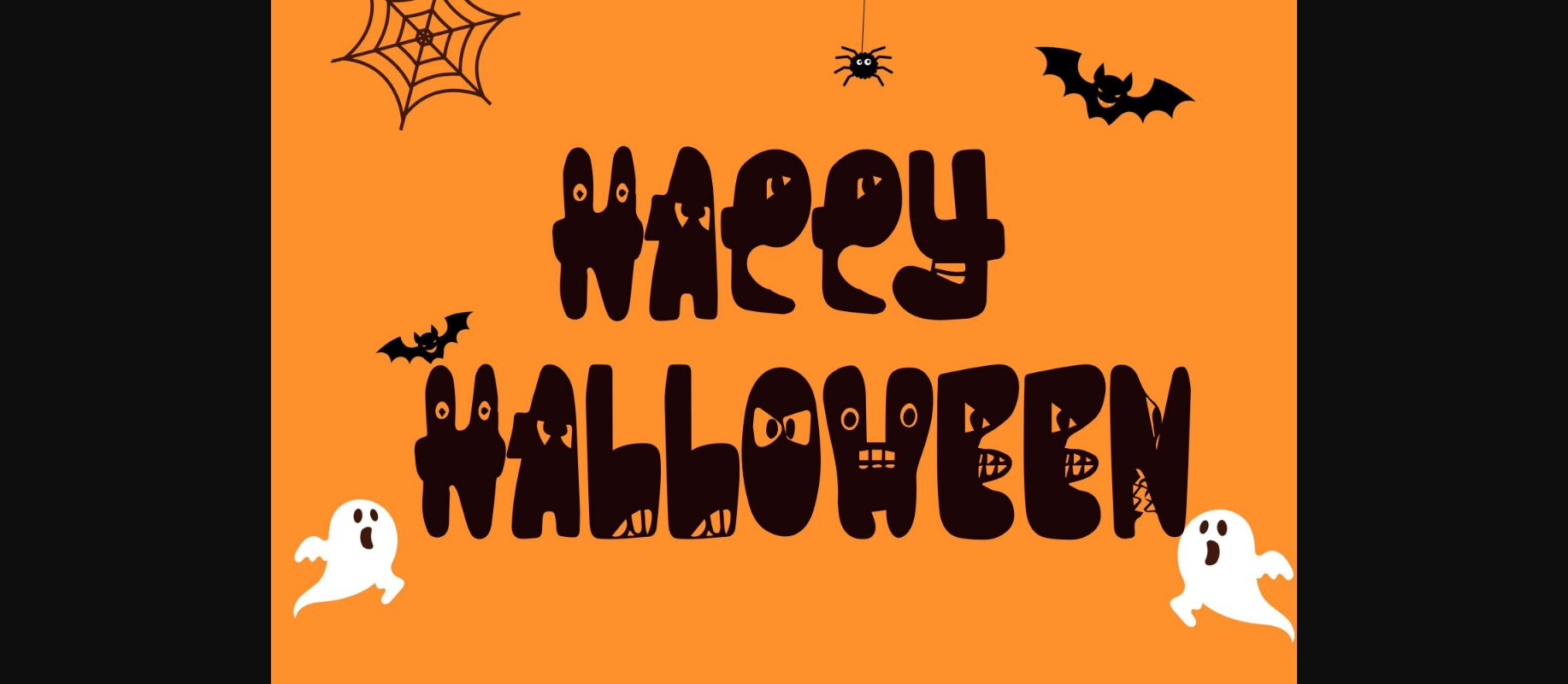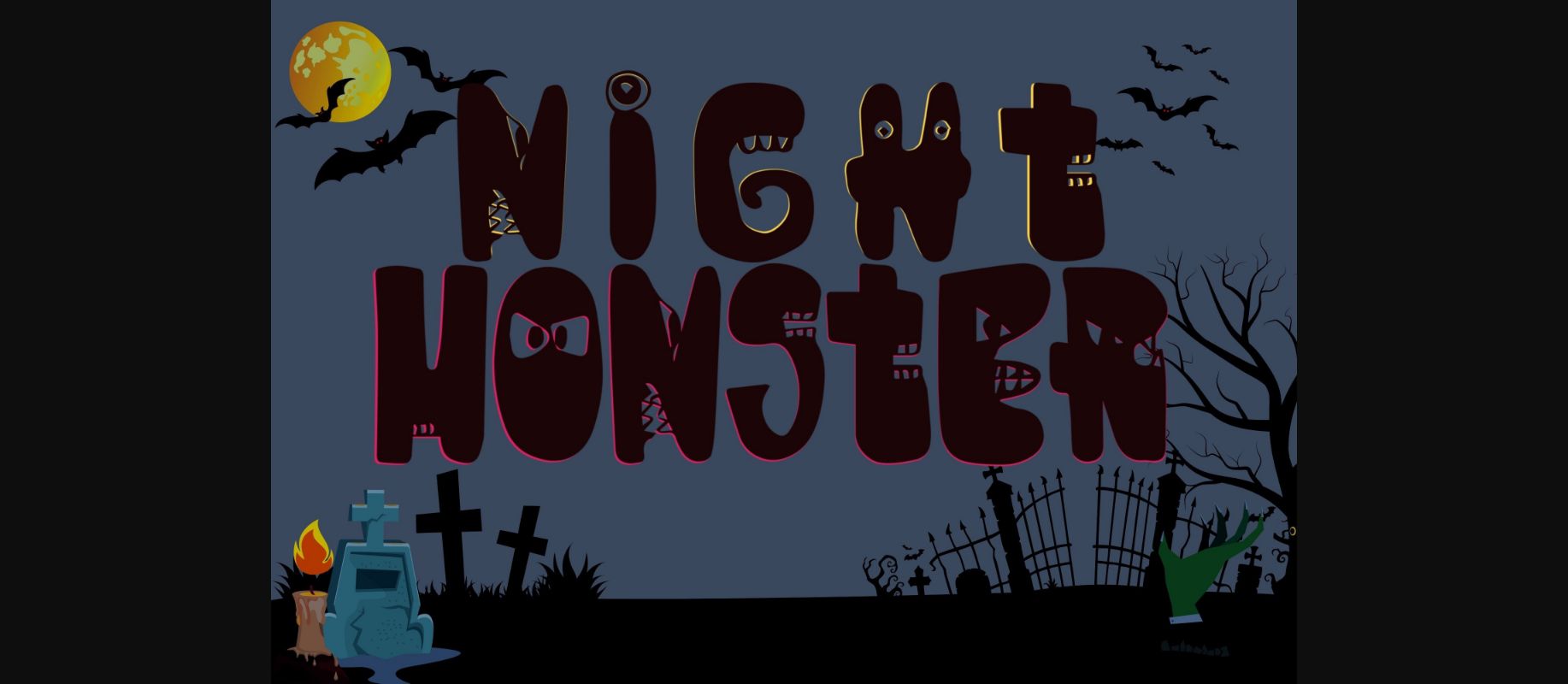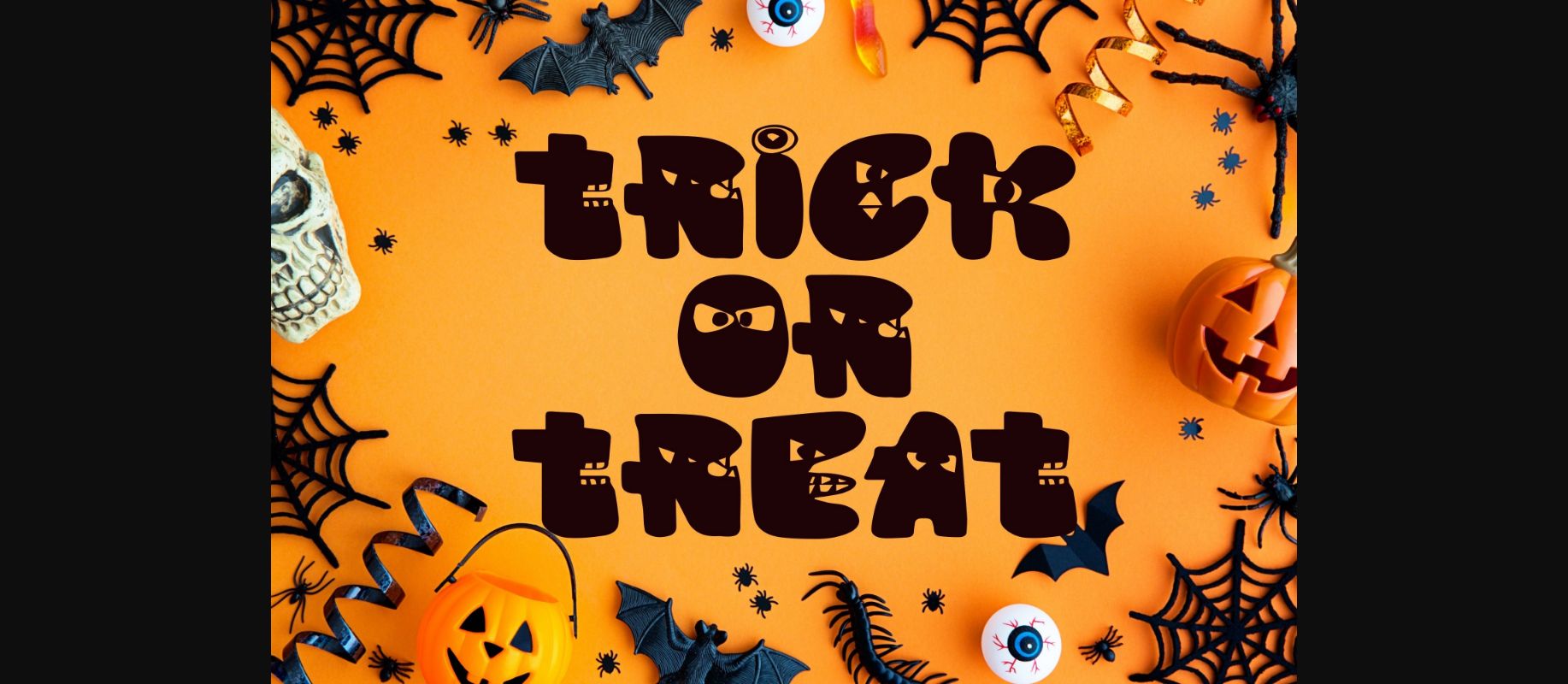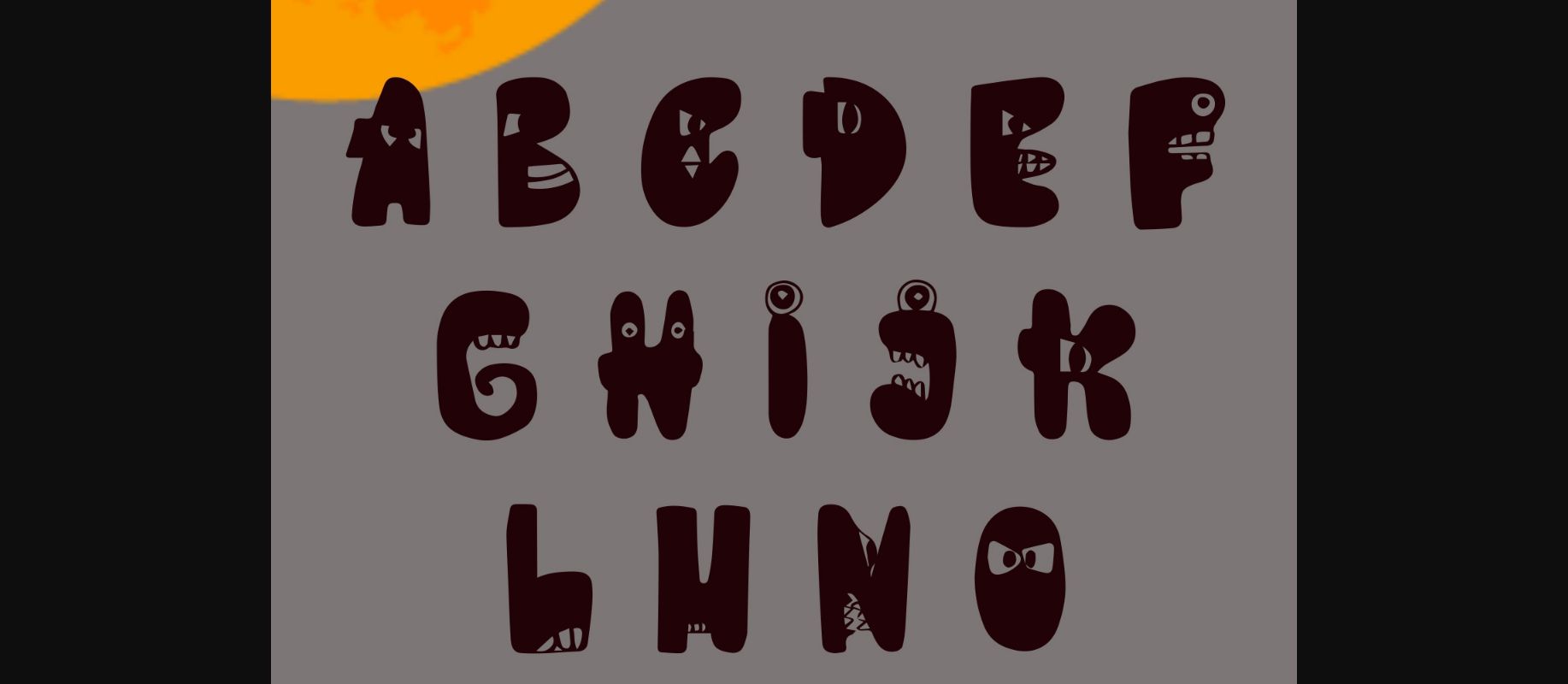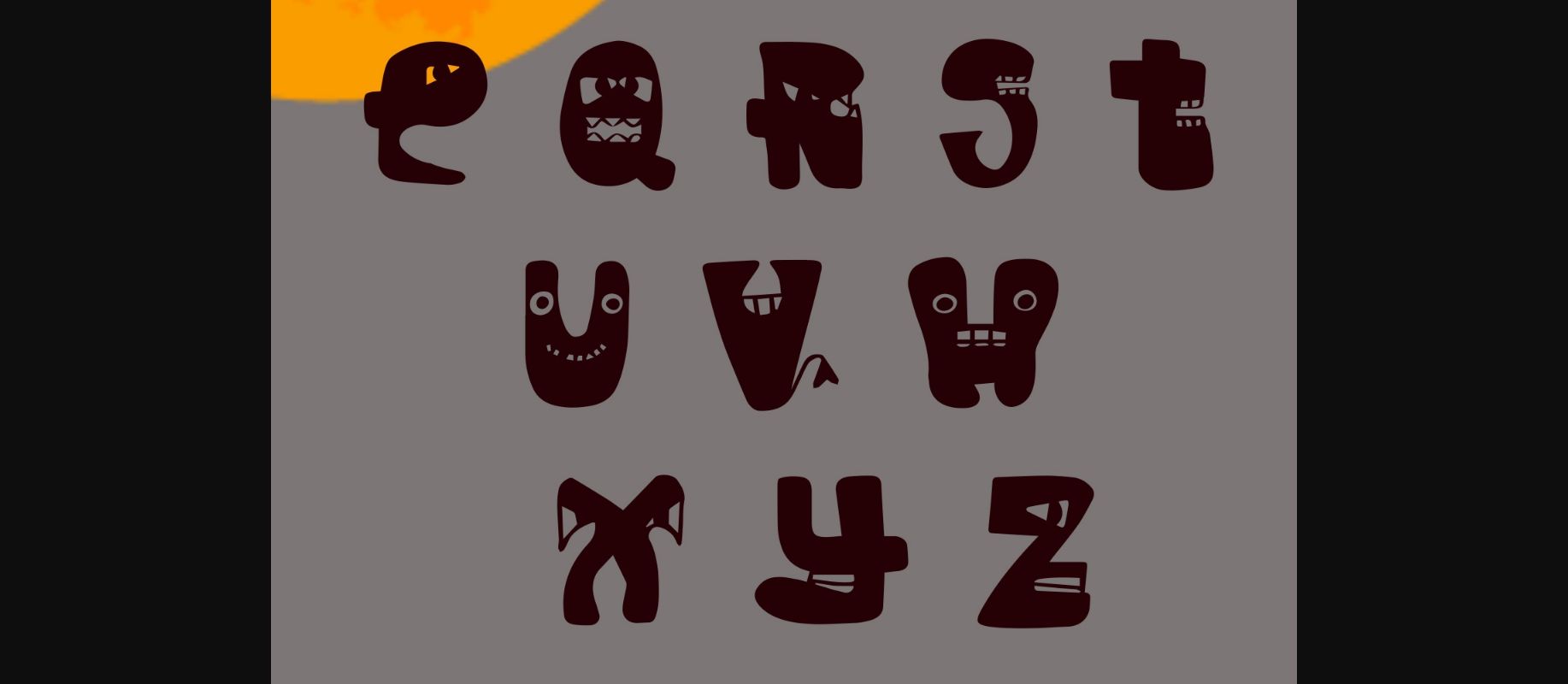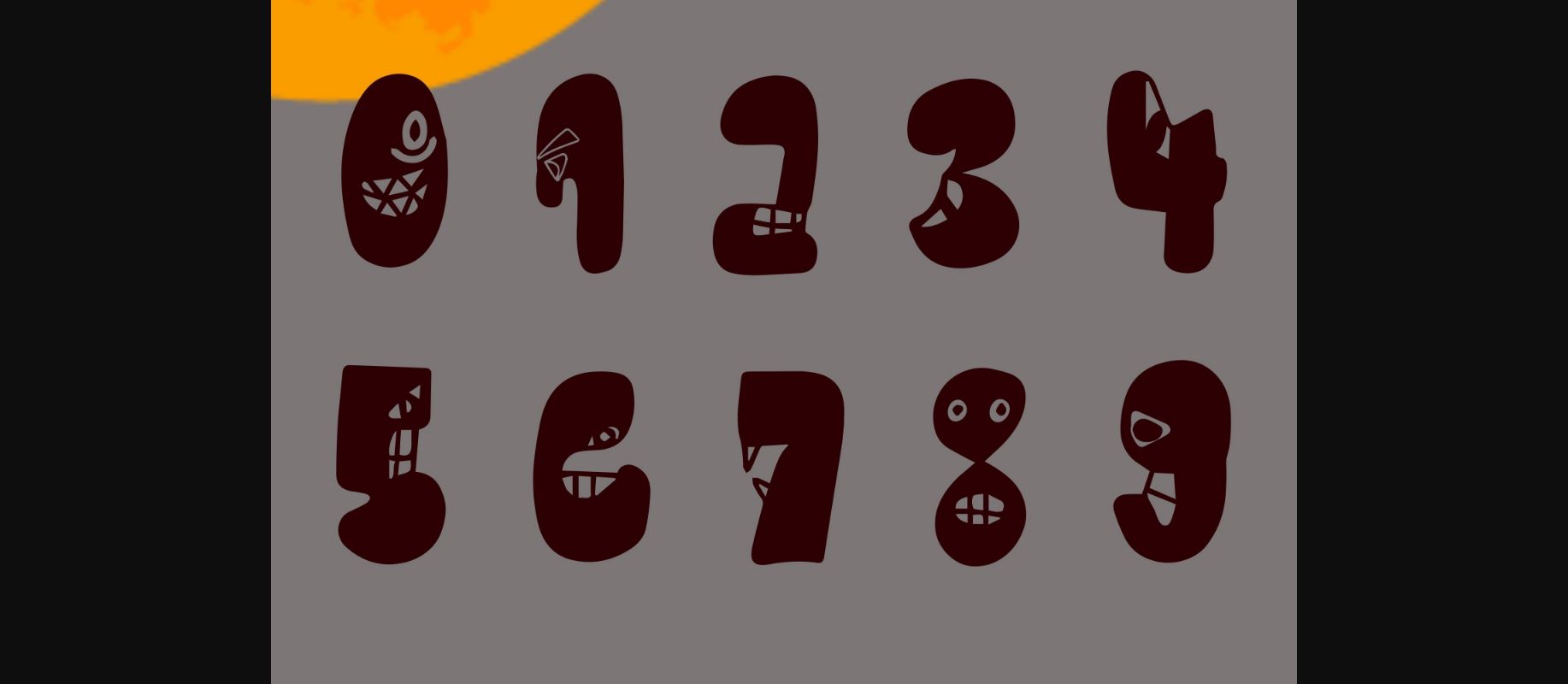
HomeDecorative FontsNight Monster Font Decorative Fonts Night Monster Font FacebookXPinterestWhatsApp 1 of 8 ... Night Monster Font Poster 2... Night Monster Font Poster 3... Night Monster Font Poster 4... Night Monster Font Poster 5... Night Monster Font Poster 6... Night Monster Font Poster 7... Night Monster Font Poster 8... About Night Monster Font Night Monster is a cool and creepy decorative font perfect for any Halloween-themed project! This font will be a wonderful asset to your font library, as it has the potential to enhance any creation. DOWNLOAD NOW People also explored Sunday Font Hesitate Font Alice Font Urbane Rounded Strike Alone Font Fiordland Font Wintersans Font Shout Ease Font Qeiza Font 307 0 TagsNight Monster Font Previous articleCute Dog FontNext articleLove Dog Font LEAVE A REPLY Cancel reply Comment: Please enter your comment! Name:* Please enter your name here Email:* You have entered an incorrect email address! Please enter your email address here Website: Save my name, email, and website in this browser for the next time I comment. Personal Use Free Propaniac Personal Use Free Read more about this font Foolish Hand Personal Use Free Read more about this font Hagia Signal Personal Use Free Read more about this font Token No 721 Personal Use Free Read more about this font BLOG 5 Fonts That Will Dominate Design Trends in 2026 5 Fonts for 2026 That Will Dominate Design Trends Typography plays a critical role in visual communication, and as we look ahead to 2026, it’s... Top 7 Google Fonts Alternatives for Faster and Privacy-Friendly Web Design (2025) Free Fonts Risk: Why Free Fonts Can Be Dangerous for Designers To increase your work productivity, choose the most readable fonts.